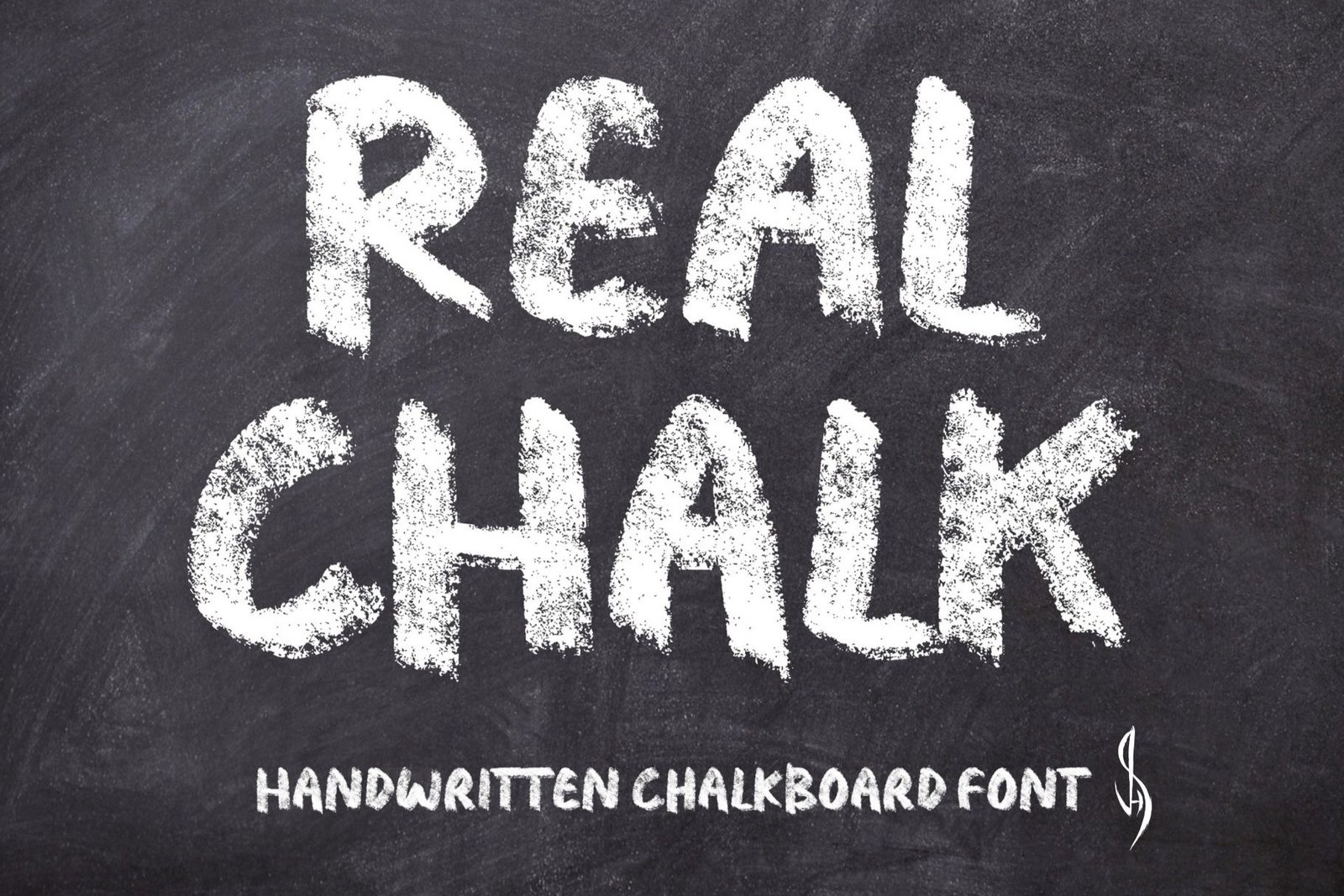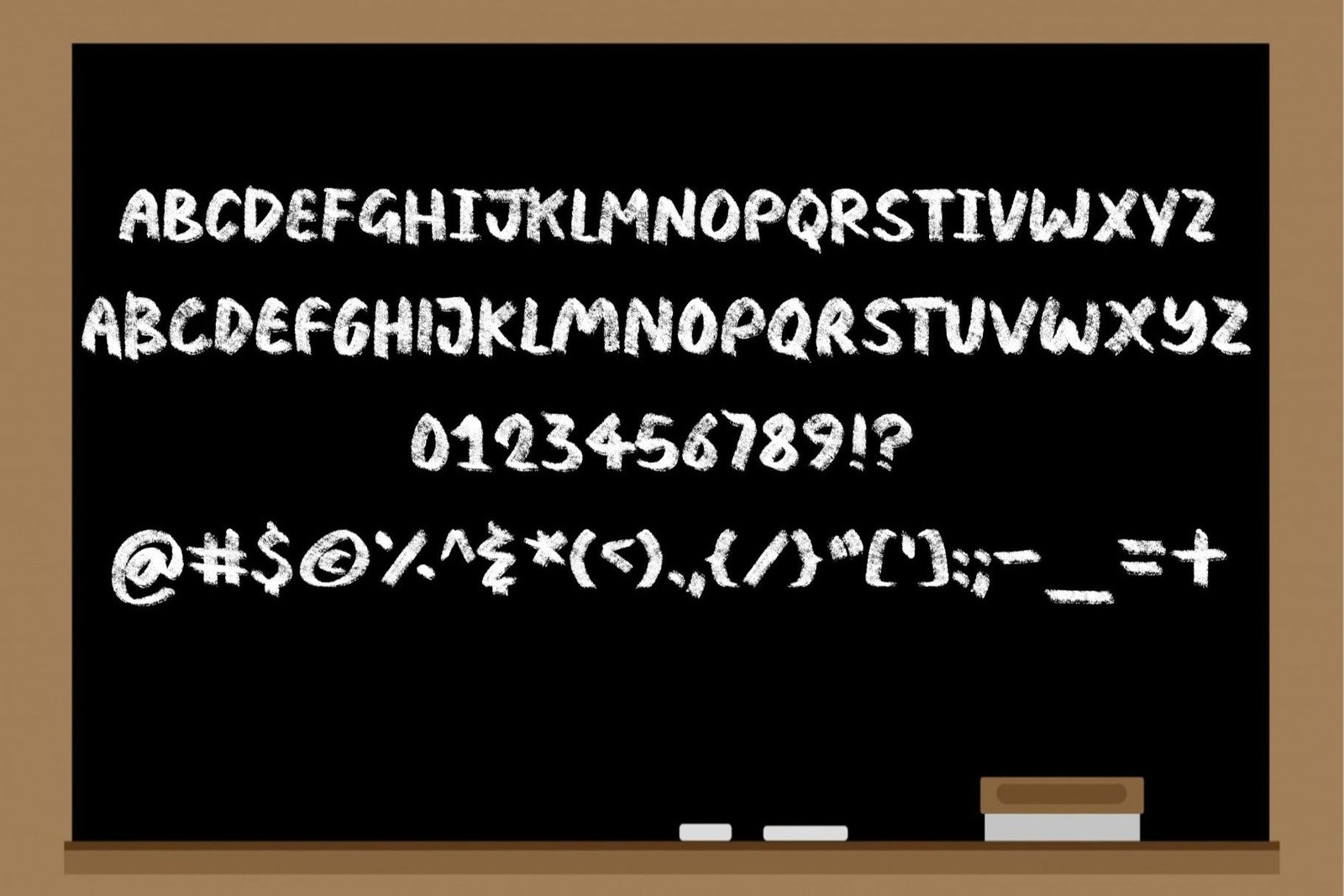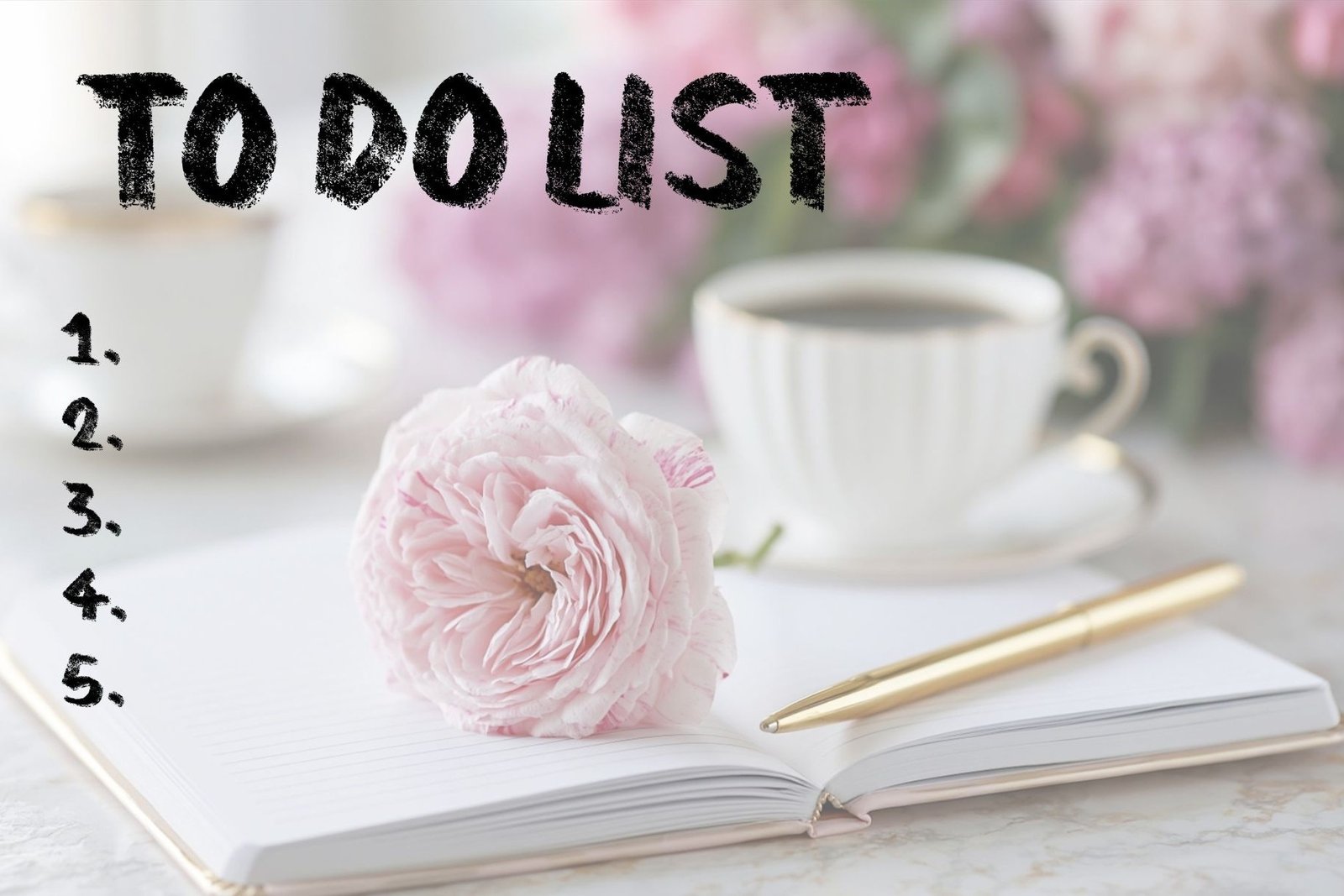
Real Chalk Font
𝐇𝐀𝐍𝐃𝐖𝐑𝐈𝐓𝐓𝐄𝐍 𝐂𝐇𝐀𝐋𝐊 𝐅𝐎𝐍𝐓
This is an ALL CAPS font. Featuring numbers, characters, and punctuation.
Real Chalk font is perfect for: advertising and display purposes, including banners, book covers, shirts, posters, logos, cricut projects, svg files, goodnotes, planners, handwritten notes, stickers and more!